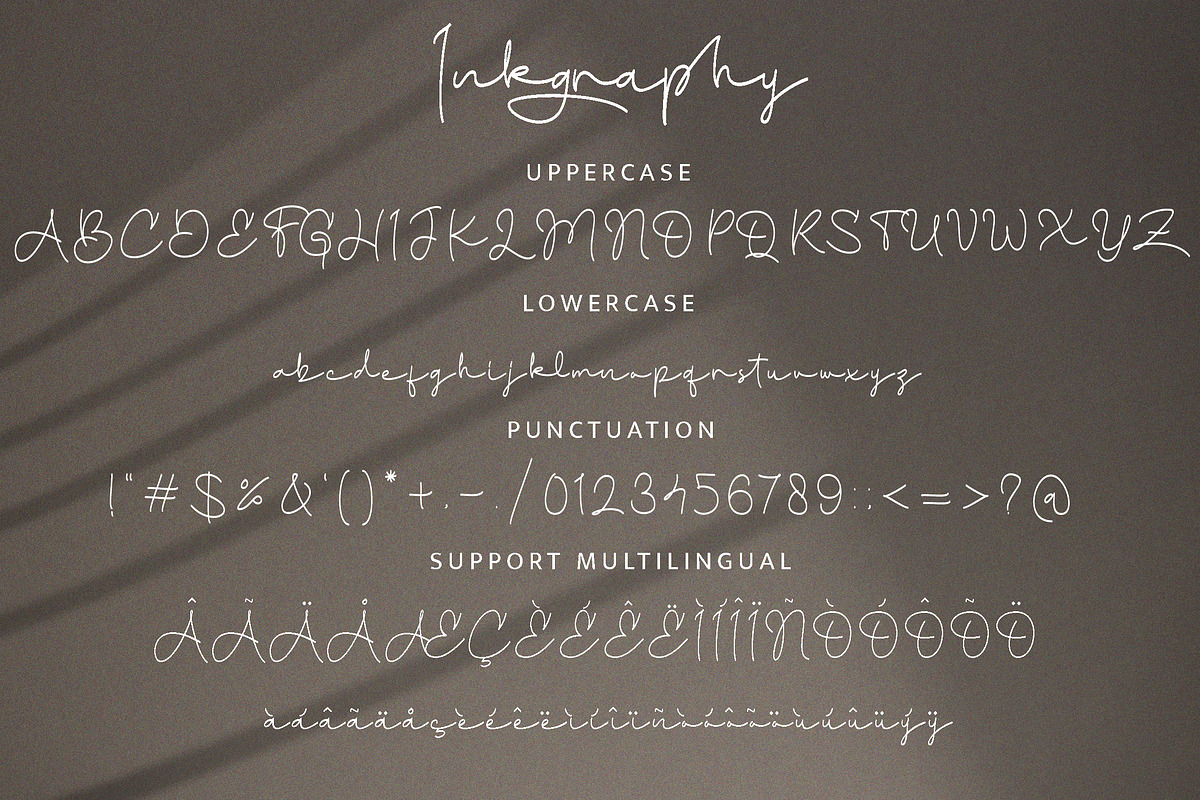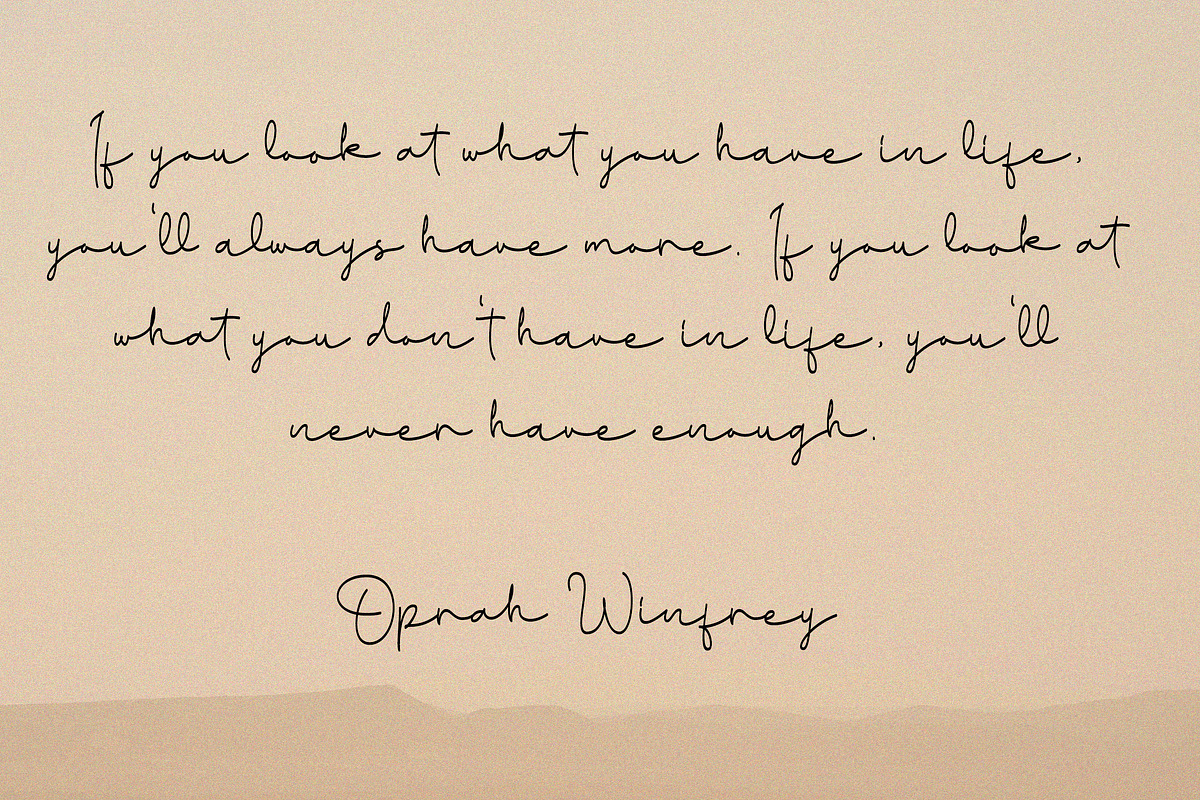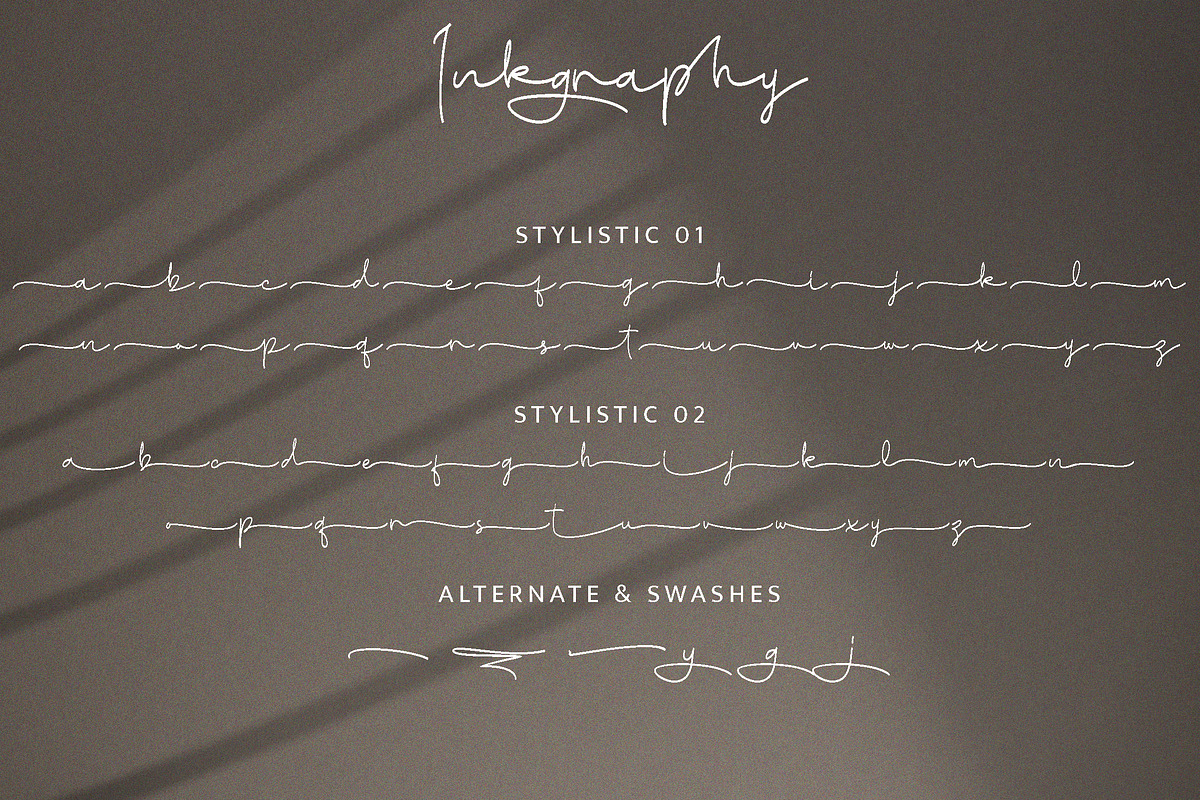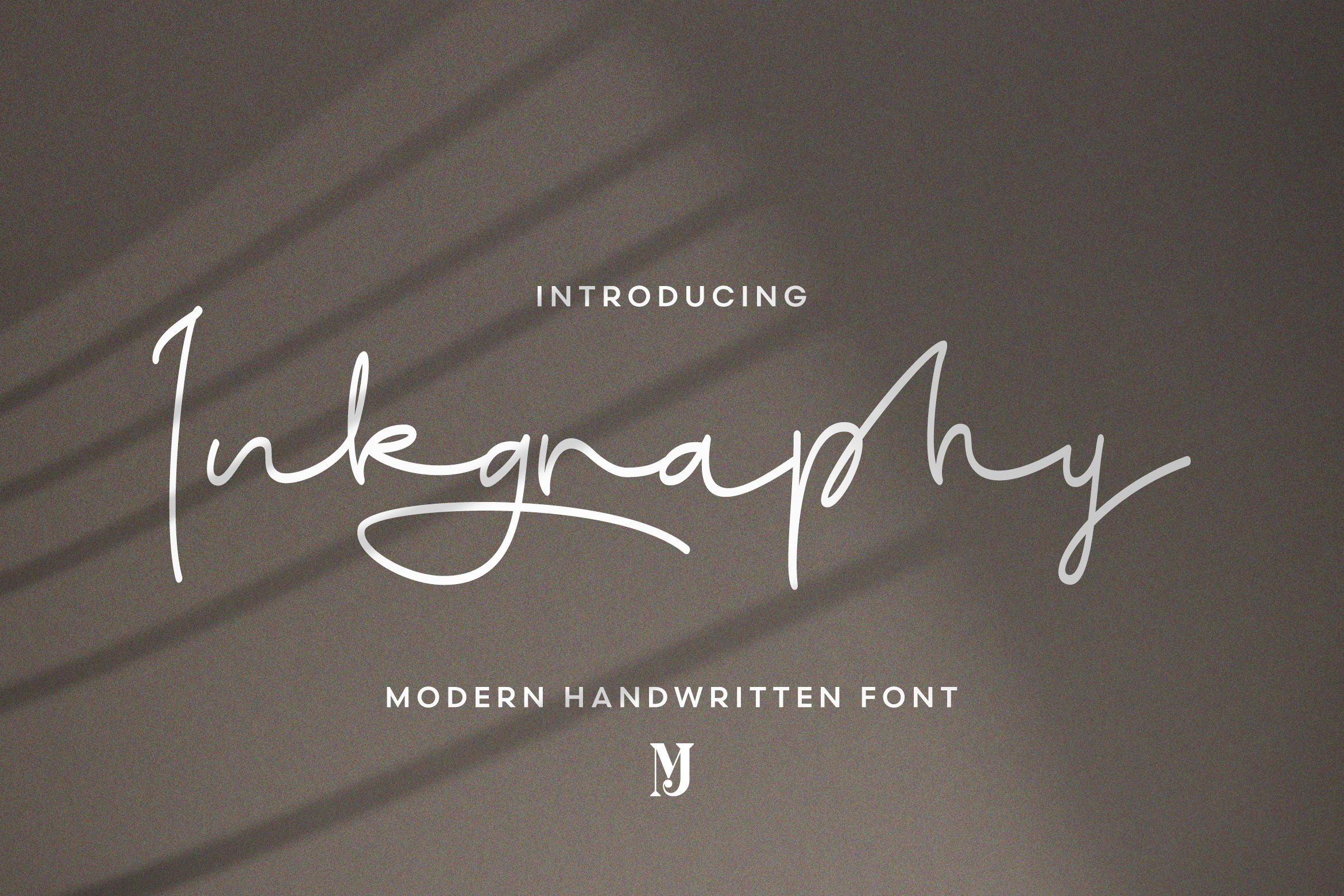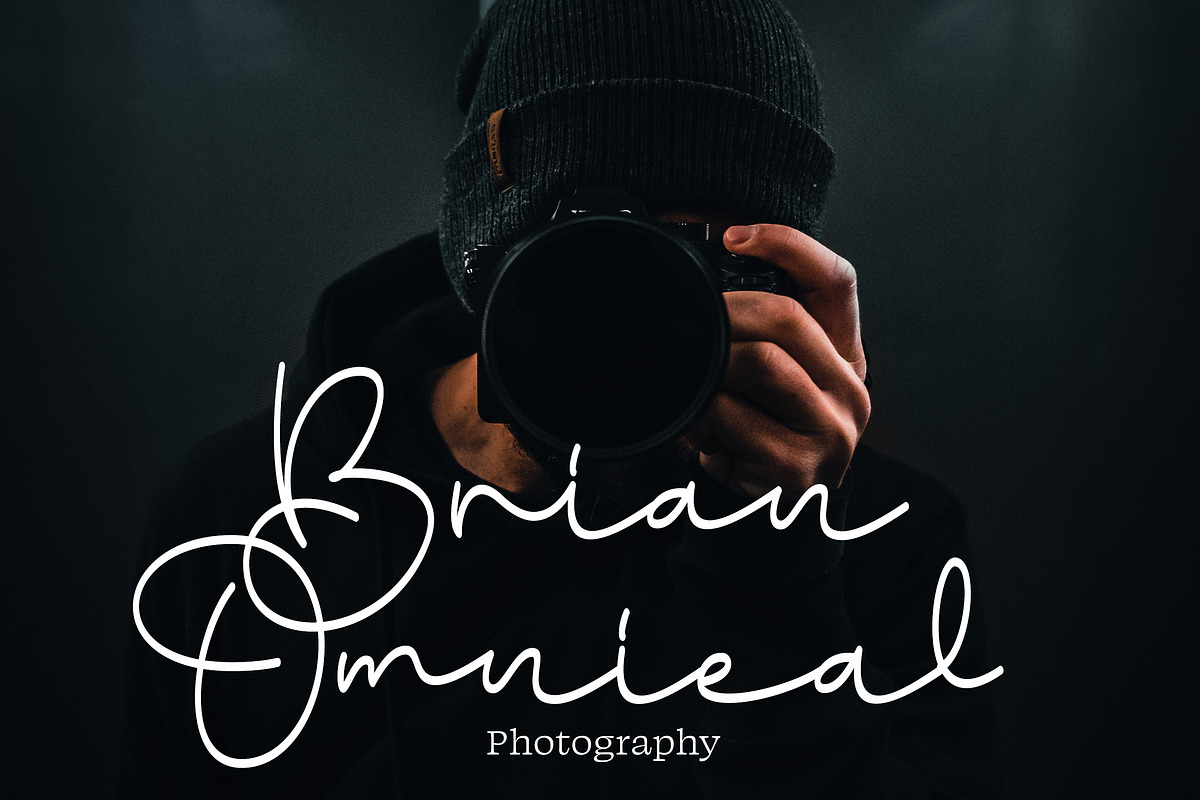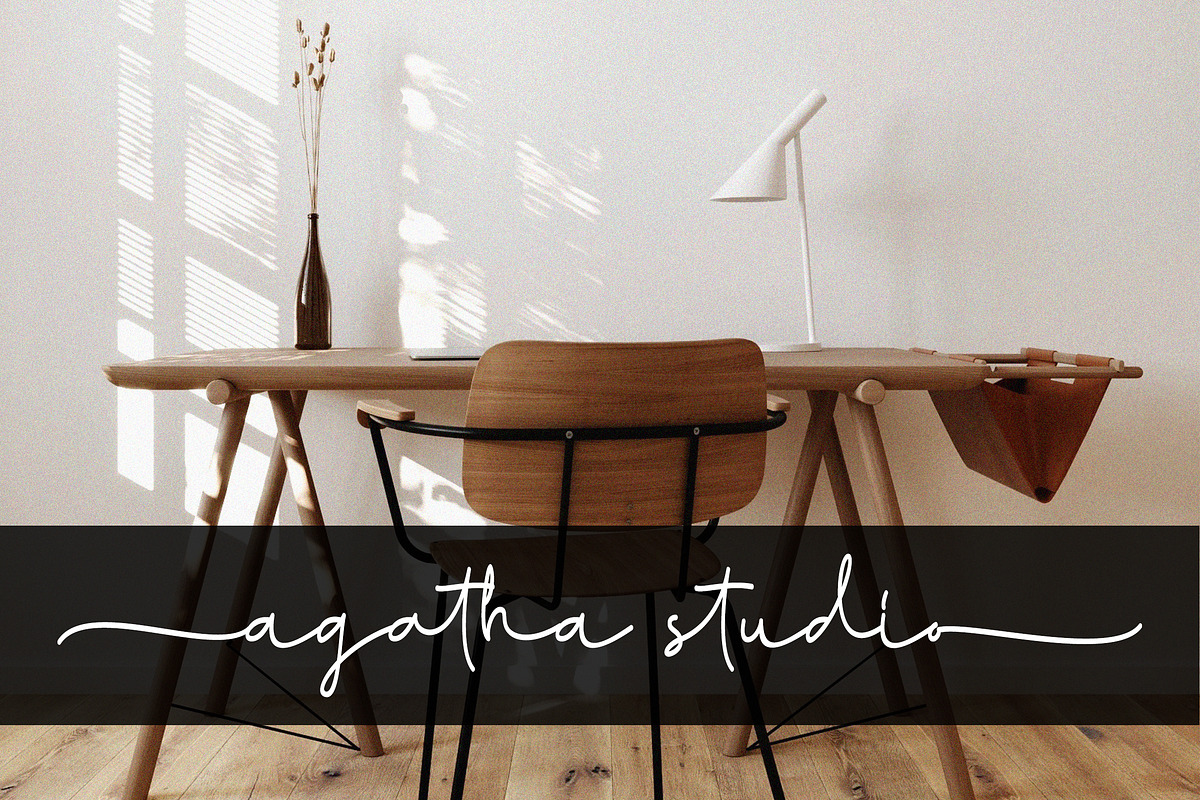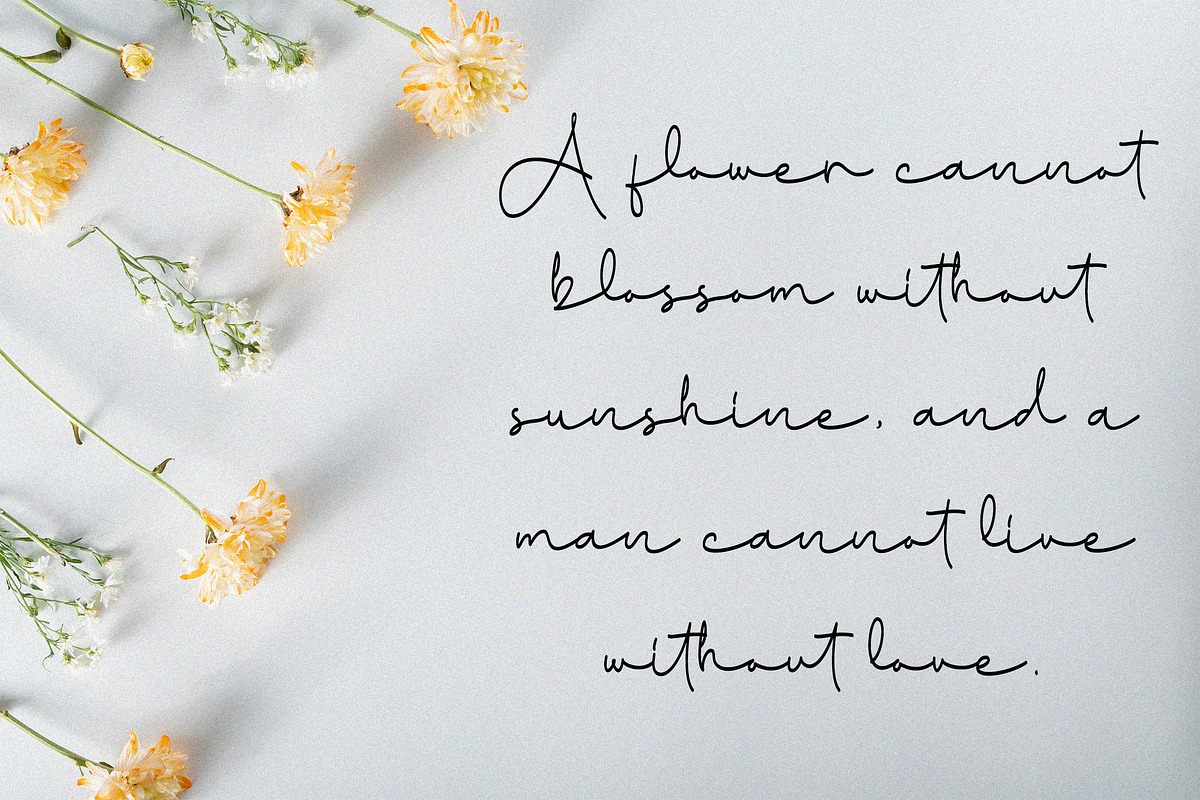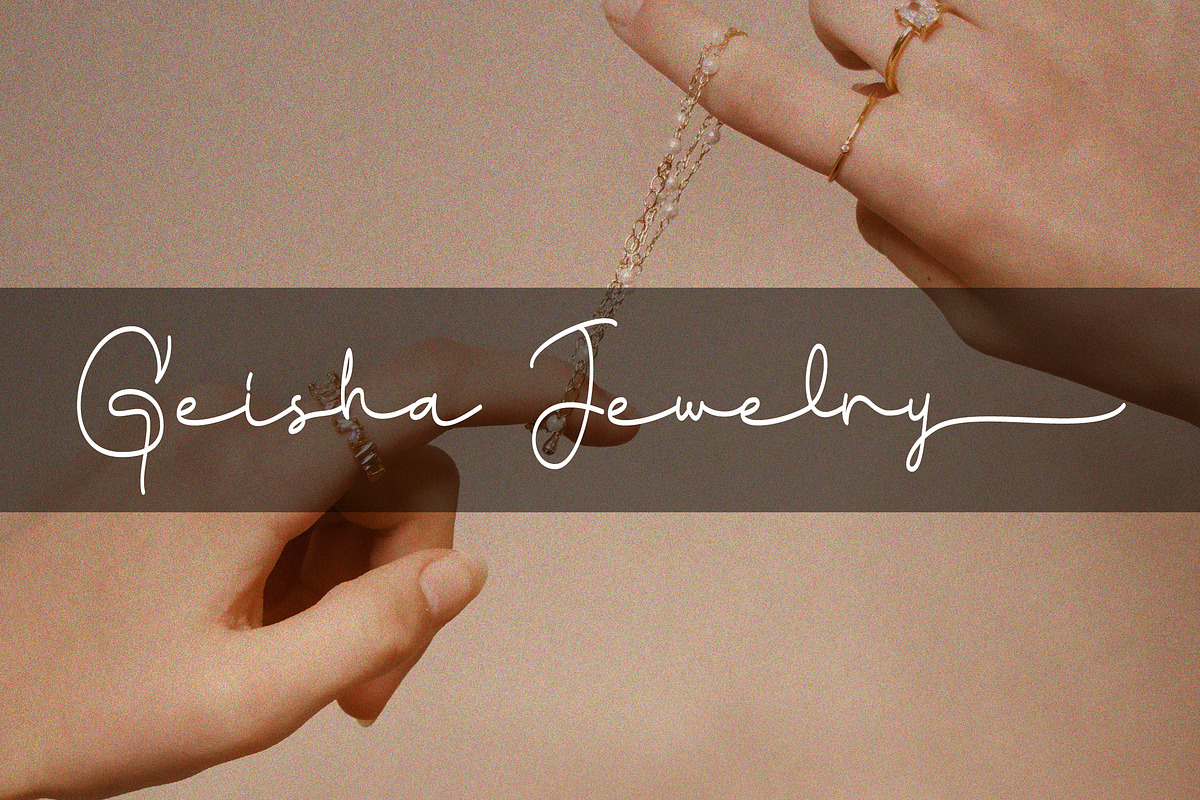
Inkgraphy Handwritten Script Font
Introducing Inkgraphy This font was created with careful attention to detail, using a real signature as inspiration to capture the unique character and style of a handwritten script. Each letter was hand-drawn to perfectly emulate the natural flow of handwriting, resulting in a stunningly authentic and realistic look.